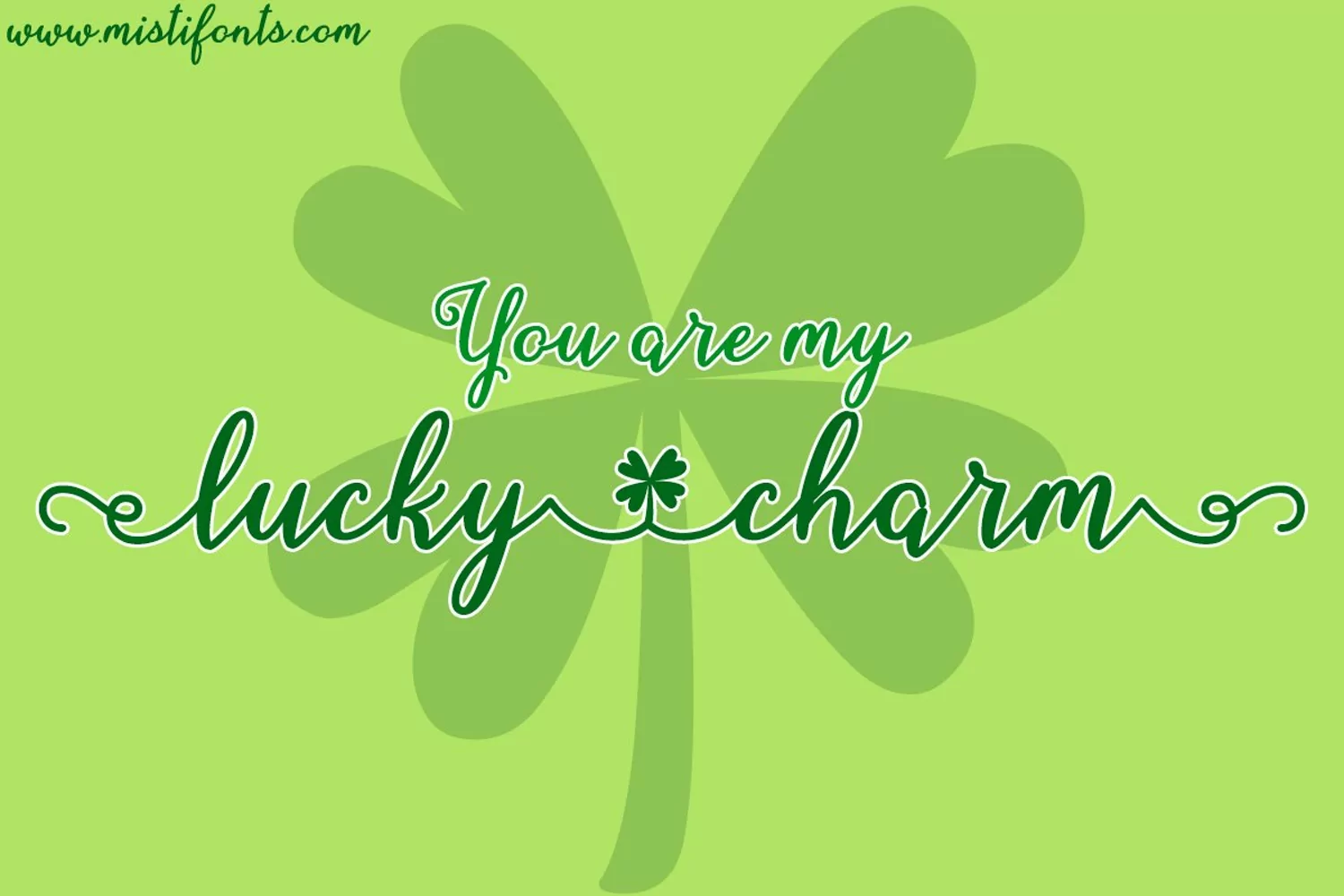
March Calligraphy
March Calligraphy is a charming calligraphy font that is great for your spring projects!
SPECIAL SYMBOLSType | (bar) for the clover
Type * (asterisk) for the flower
Type (backslash) for the flower that connects between lowercase letters
Type ^ (caret) for the clover that connects between lowercase letters
Type {} (swirly brackets) for the swirls